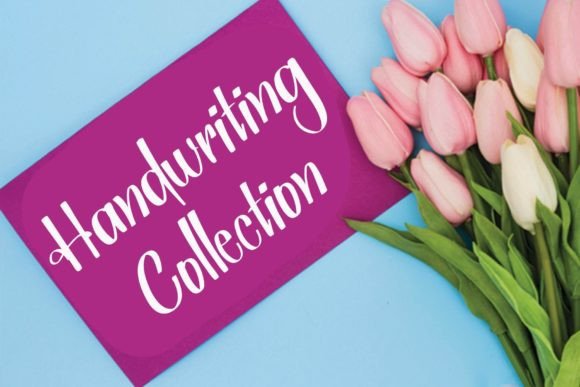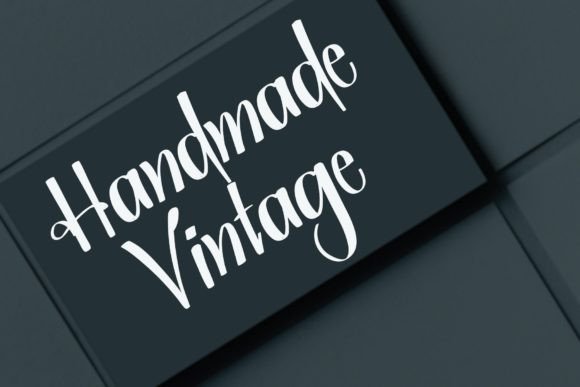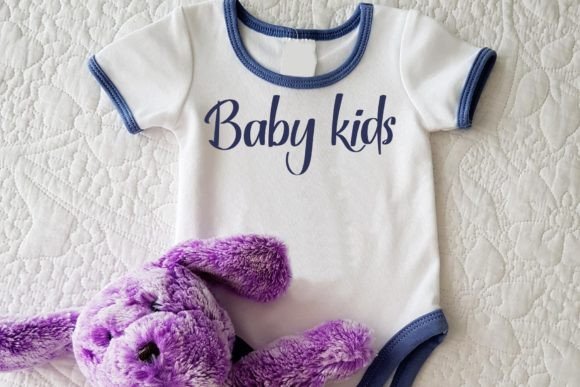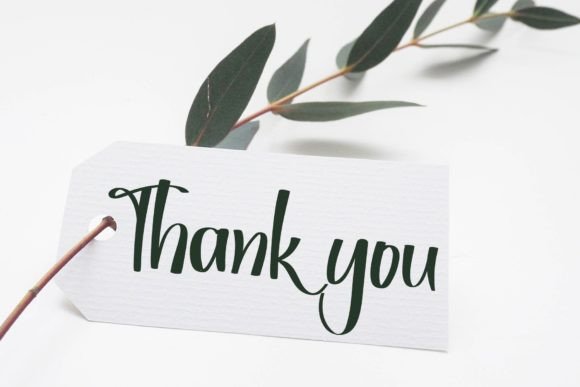
Pinky Promise Font
About Pinky Promise Font
Pinky Promise is a delightful and enchanting handwritten font that adds a touch of magic to any creative project. Its whimsical and charming style makes it a versatile choice, suitable for a wide range of applications, from greeting cards to headlines. This font is guaranteed to infuse a romantic and intimate feel into your next project, capturing the hearts of your audience.
The unique charm of Pinky Promise lies in its playful and handwritten appearance. The characters flow gracefully, creating a sense of elegance and romance. When used in greeting cards, love notes, or wedding invitations, Pinky Promise brings a sense of warmth and tenderness to your messages, making them even more heartfelt and meaningful. Its enchanting quality adds a touch of romance, making your words resonate with passion and sincerity.
Beyond personal messages, Pinky Promise finds its place in various design contexts. Whether you’re working on branding materials, posters, social media graphics, or headlines, this font effortlessly adds a romantic and magical vibe. Its versatility ensures that your designs stand out, capturing the attention of your audience and conveying your message with style and grace.
Pinky Promise not only enhances the visual appeal of your projects but also creates a memorable and captivating experience for your audience. Its handwritten charm adds authenticity and personality, making your designs truly unique. The font’s ability to evoke a sense of romance and enchantment makes it an invaluable tool for designers aiming to create captivating and emotionally resonant designs.
Incorporating Pinky Promise into your next project allows you to infuse a romantic feel, making your creations come alive with charm and magic. Whether you’re designing heartfelt greeting cards, expressive love letters, or eye-catching headlines, Pinky Promise will add a touch of romance and intimacy, ensuring your project leaves a lasting impression and touches the hearts of your audience.